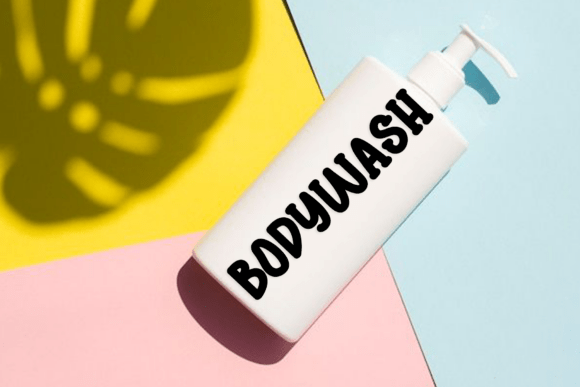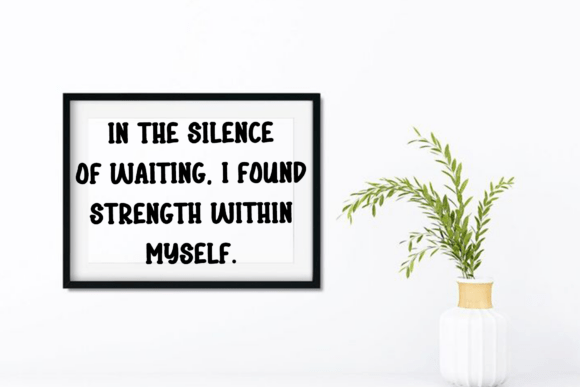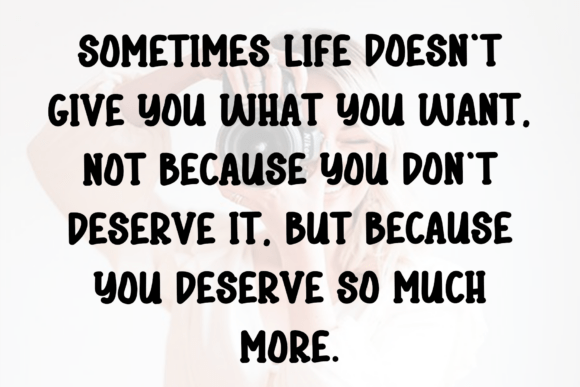
Introducing Capture Font: The Perfect Handwritten Style for Your Creative Projects
Are you a designer or crafter looking for a unique and playful font to add a personal touch to your projects? Look no further than Capture Font! This charming font is designed to bring a smile to your face with its tall, friendly, and slightly uneven monoline weight. In this article, we’ll dive into the features and benefits of Capture Font, and explore how it can elevate your designs and crafts.
A Unique and Approachable Personality
Capture Font boasts a clean and condensed vertical structure that gives it a straightforward, yet approachable personality. Its slightly uneven monoline weight adds a touch of whimsy and playfulness, making it perfect for projects that require a friendly and cheerful vibe. Whether you’re designing a children’s book, creating custom stationery, or crafting positive social media quotes, Capture Font is the ideal choice.
Ideal for a Variety of Projects
Capture Font is a versatile font that can be used in a wide range of projects, including:
- Children’s books: Add a touch of magic to your storybook designs with Capture Font’s playful and imaginative style.
- Custom stationery: Create personalized stationery that’s both fun and functional with Capture Font’s cheerful and approachable personality.
- Positive social media quotes: Spread positivity and inspiration with Capture Font’s uplifting and motivational style.
- Casual branding: Give your brand a friendly and approachable voice with Capture Font’s unique and playful style.
Key Features of Capture Font
So, what makes Capture Font so special? Here are some of its key features:
- Tall and friendly: Capture Font’s tall structure gives it a friendly and approachable personality.
- Monoline weight: The font’s monoline weight adds a touch of simplicity and elegance.
- Slightly condensed: Capture Font’s condensed structure makes it perfect for projects that require a clear and concise message.
- Clean and vertical: The font’s clean and vertical structure gives it a straightforward and modern feel.
- Playful and unique: Capture Font’s playful and unique style makes it perfect for projects that require a touch of personality.
Tips for Using Capture Font
Here are some tips for getting the most out of Capture Font:
- Pair it with bold colors: Capture Font looks amazing paired with bold and bright colors. Try pairing it with a bold color scheme to add an extra touch of personality to your design.
- Experiment with sizes: Capture Font looks great in a variety of sizes. Experiment with different sizes to find the perfect fit for your project.
- Add some texture: Capture Font looks great with texture. Try adding some texture to your design to give it a more organic and handmade feel.
- Mix it with other fonts: Capture Font pairs well with other fonts. Try mixing it with a bold font for a striking contrast.
Capture Font is a unique and playful font that’s perfect for designers and crafters looking to add a personal touch to their projects. With its tall, friendly, and slightly uneven monoline weight, Capture Font is ideal for a wide range of projects, from children’s books to custom stationery. Whether you’re looking for a font that’s fun, approachable, and cheerful, Capture Font is the perfect choice. So why not give it a try and see how it can elevate your designs and crafts?
With its versatility, playfulness, and unique personality, Capture Font is sure to become a favorite in your font collection. So go ahead, get creative, and capture the magic of Capture Font!